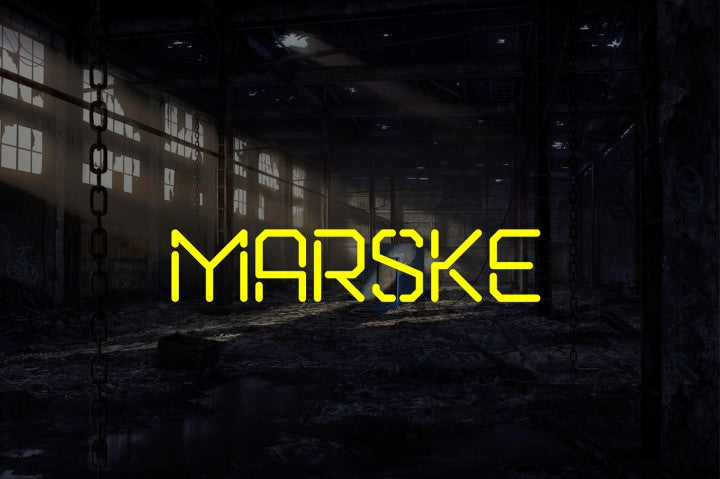
Free Marske Font
Featuring the stunning free marske font. This is a downloadable free font file brought to you by The Hungry JPEG. Showcase your designs like a graphic design pro by adding a new touch with this fancy font.